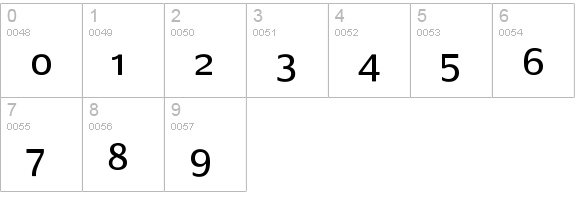
PraxisEF-RegularSC Font Details
PraxisEF-RegularSC is a stylish and versatile font that exudes elegance and sophistication. With its clean lines and modern design, this font is perfect for a wide range of projects, from branding to editorial design. The unique lowercase letters add a touch of creativity and flair to any text. What's even better is that PraxisEF-RegularSC is available for free download at FontsMarket.com. So, whether you're a designer looking to add a fresh font to your collection or a hobbyist searching for a unique typeface for a personal project, this font is the perfect choice. Don't miss out on the opportunity to enhance your design work with this beautiful and freely available font.